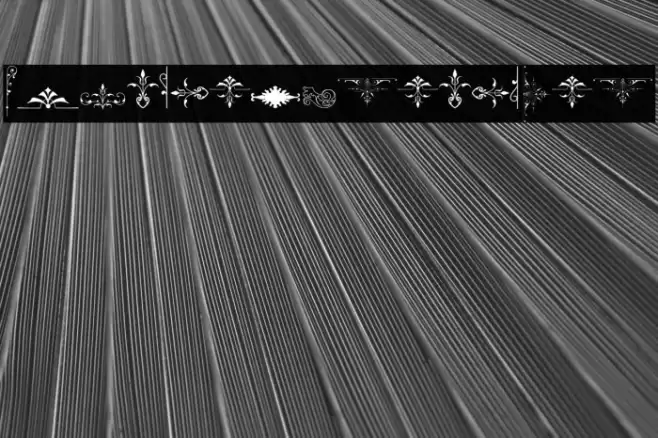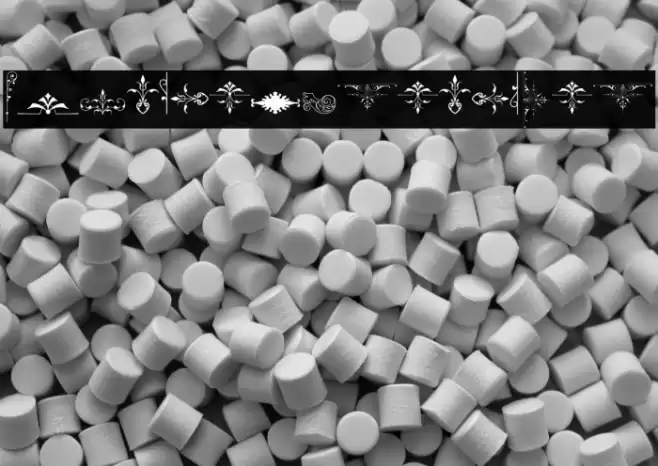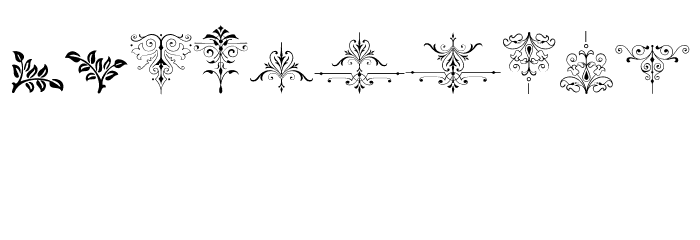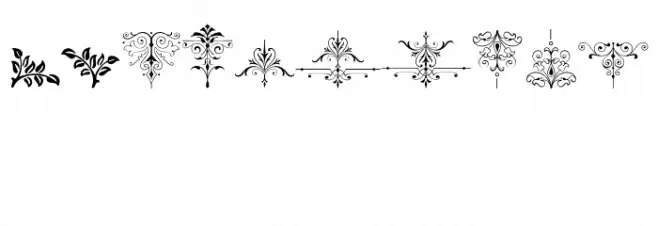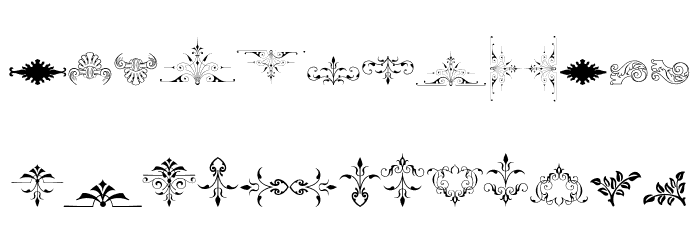
SoftOrnamentsNine Font
SoftOrnamentsNine Description
This collection of ornamental designs features intricate and decorative elements that are perfect for adding a touch of elegance and sophistication to any project. The designs include a variety of flourishes, swirls, and floral motifs, each crafted with attention to detail and artistic flair. These ornaments are versatile and can be used to enhance invitations, certificates, or any creative work that requires a classic and refined aesthetic. The elements are well-balanced, with a mix of bold and delicate lines that create a harmonious visual appeal.
- Proposed Projects: Ideal for wedding invitations, certificates, decorative borders, and vintage-themed designs.
- Overall Style: Vintage
- Use Case: Decorative elements